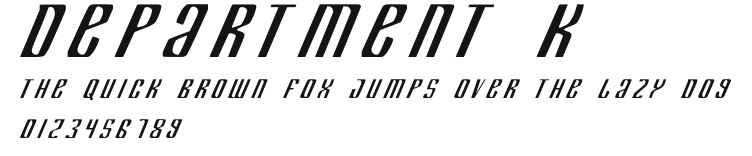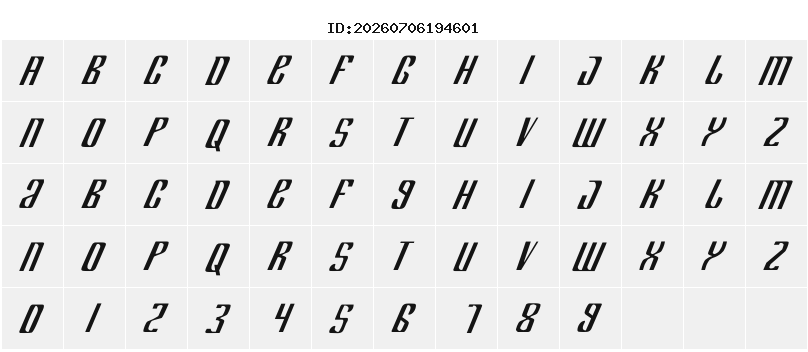
Department K Preview
About Department K.ttf
Department K.ttf is a modern, elegant sans-serif font designed for ultimate readability and visual harmony. Perfect for branding, headlines, web design, and print materials.